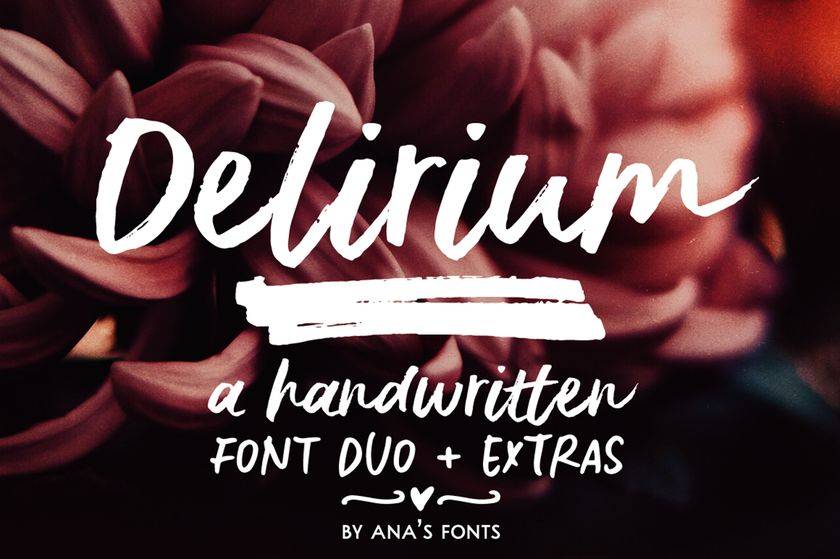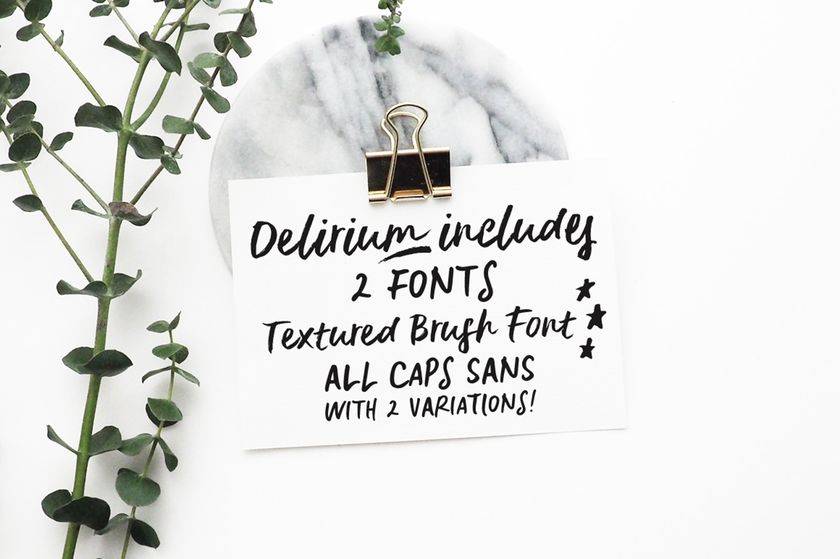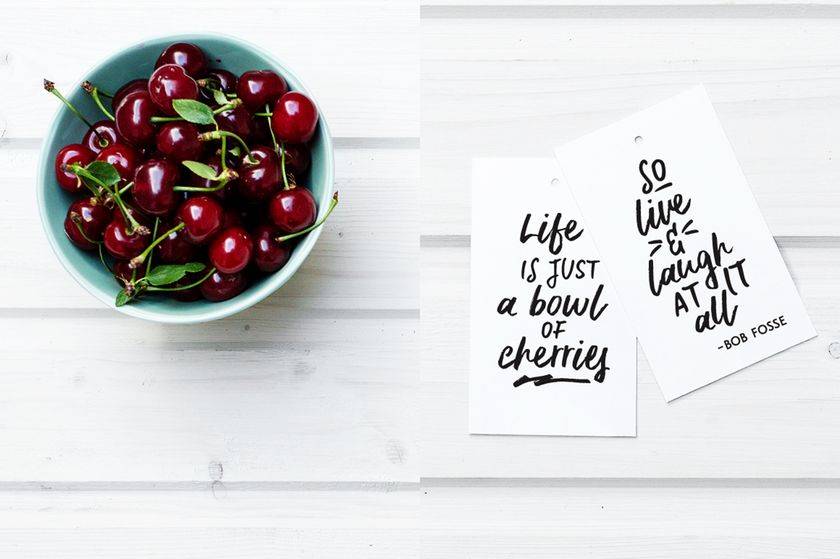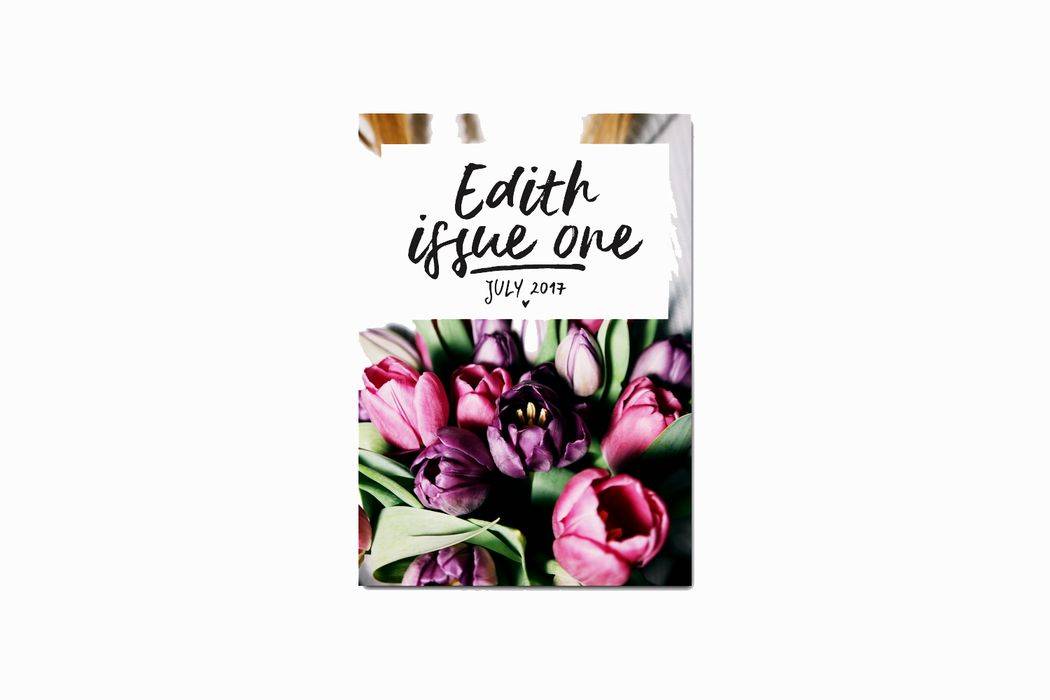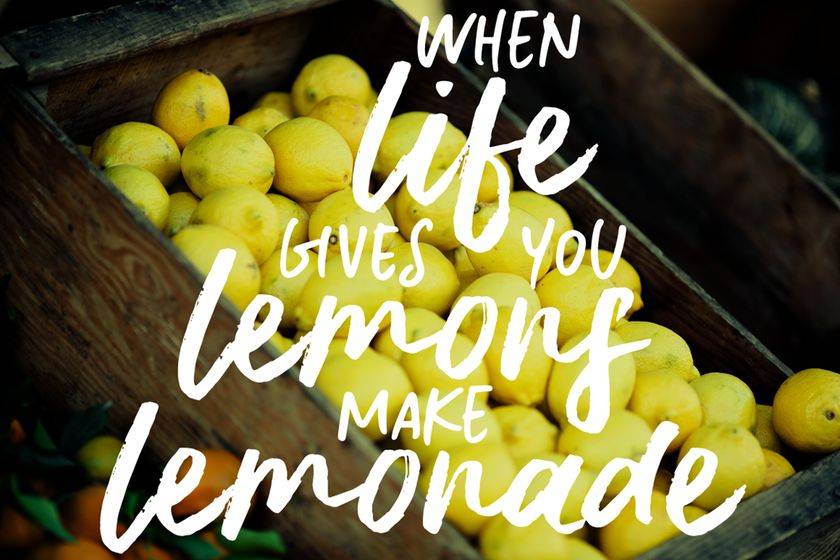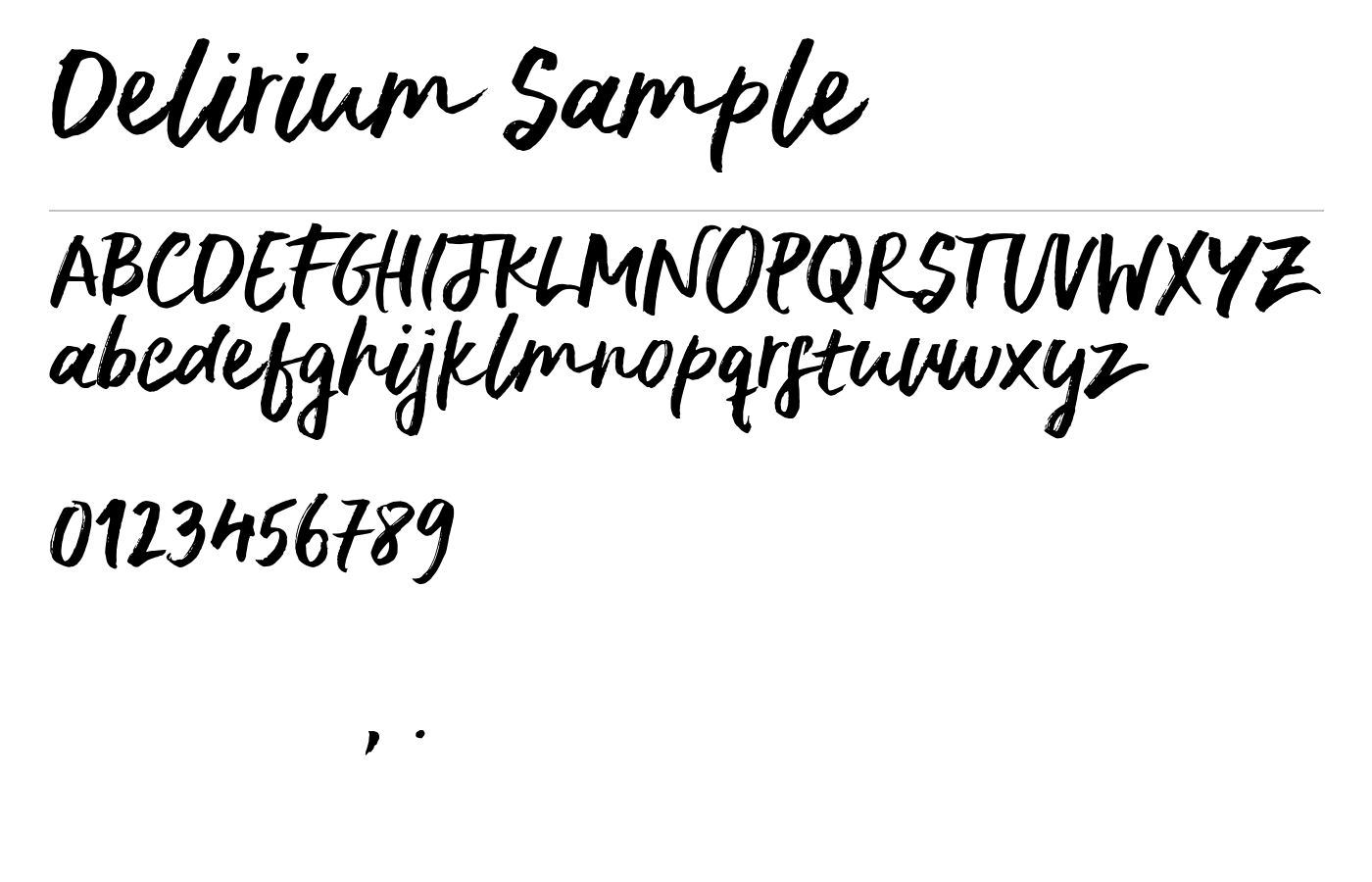
Delirium is a bold, brush-style script font with a lively, hand-painted feel. Its energetic strokes and slightly rough edges give it a casual, artistic personality, making it perfect for creative projects, informal branding, and eye-catching headlines that want to convey spontaneity and expressiveness. This font works wonderfully in designs that seek to stand out with a personal, handcrafted touch.
Delirium Font
About Delirium Font
| Font family | Delirium Font |
| Designer | Ana Parracho |